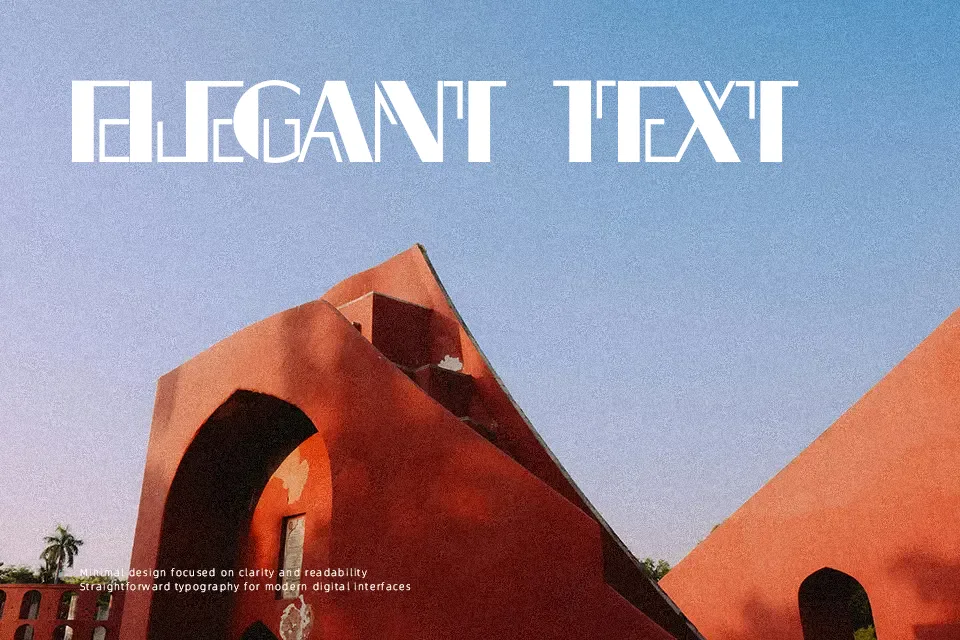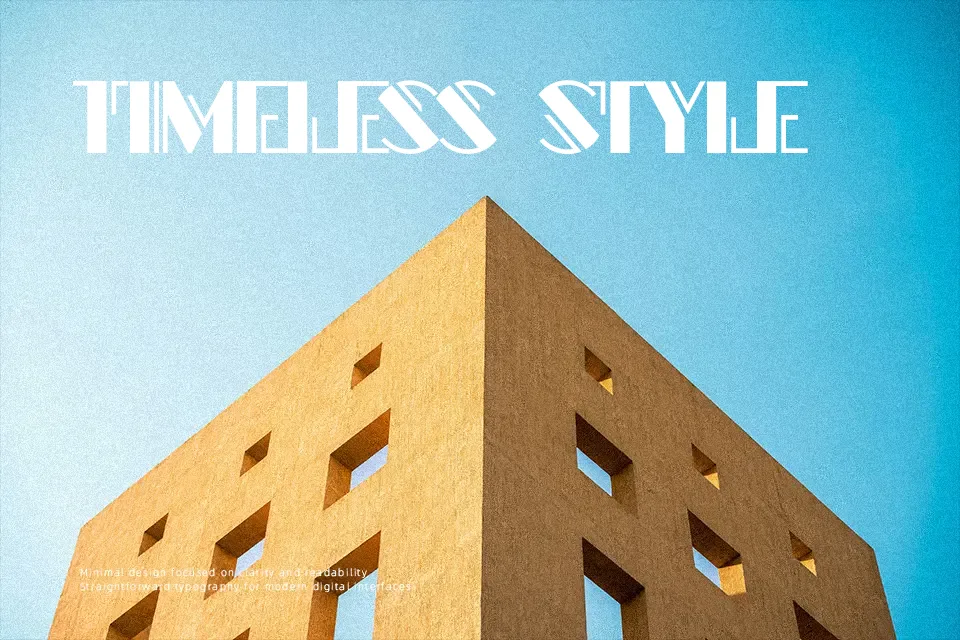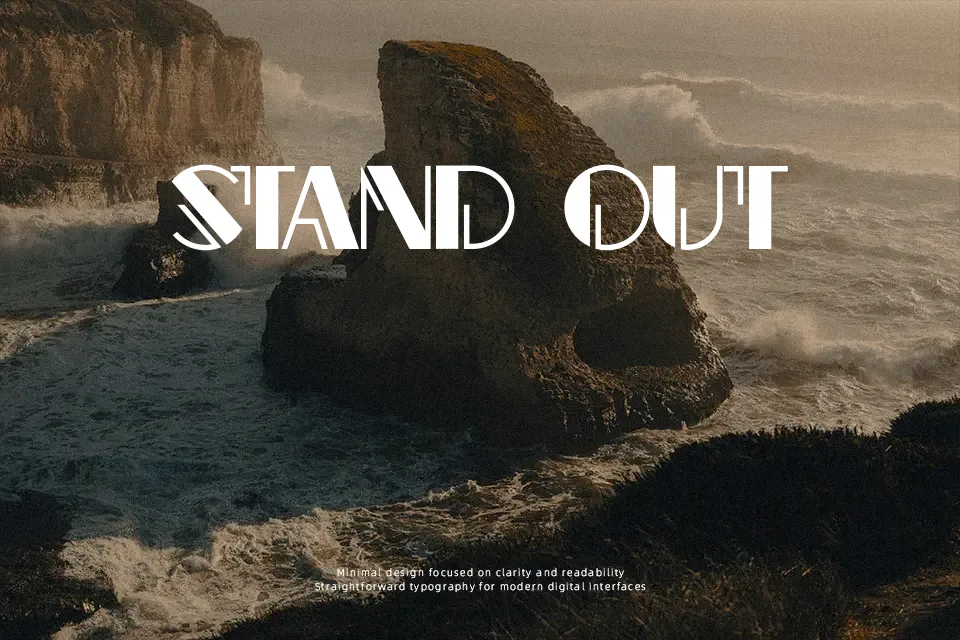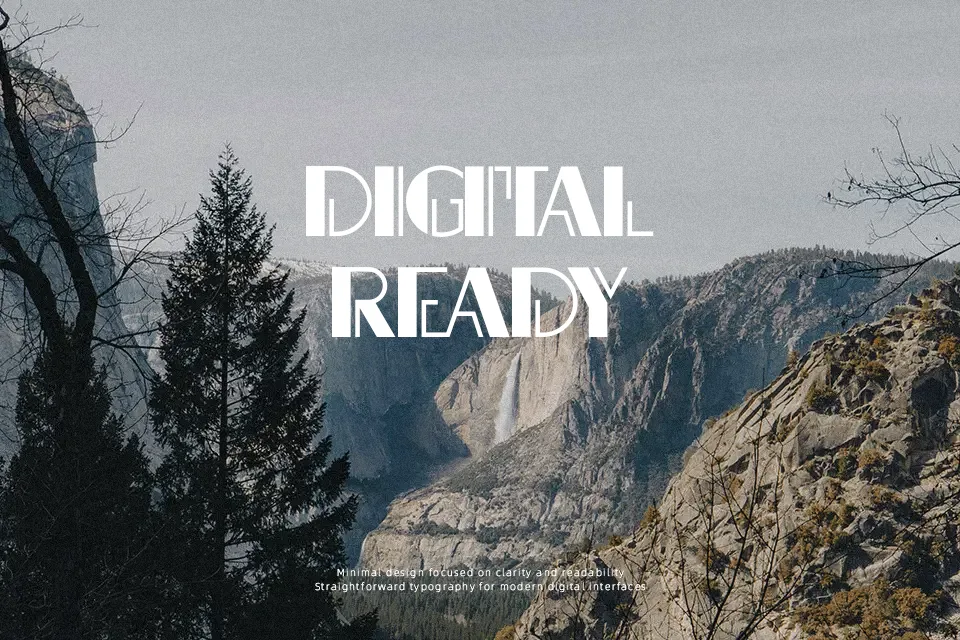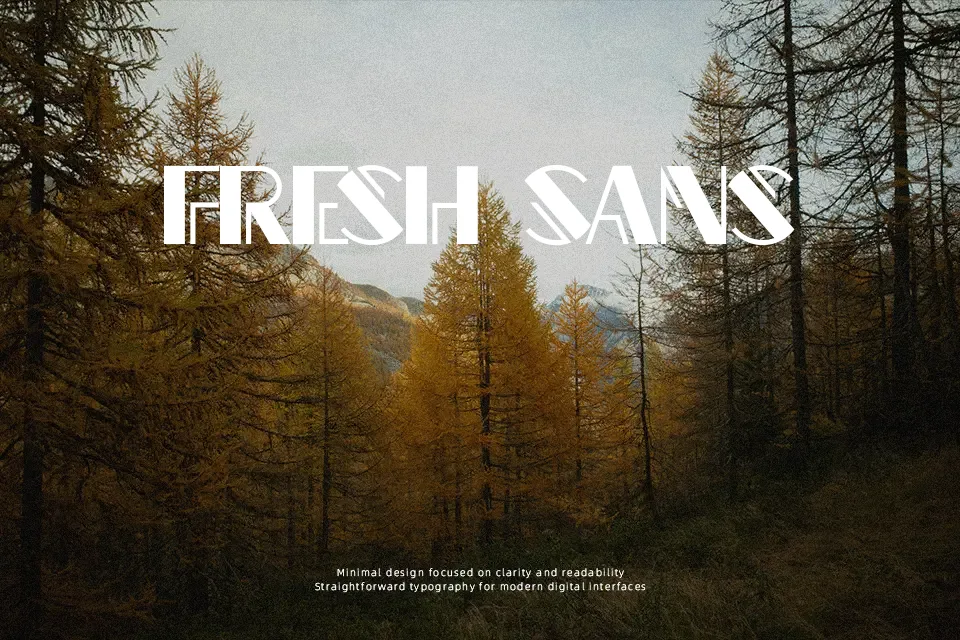
Rocodecoco Font
Designed by SleepyGecko
A bold typographic presence defines the Rocodecoco Font, blending highly stylized geometry with clean, substantial strokes. The letterforms are characterized by striking thickness contrast and tight but balanced spacing, capturing a distinct vintage flair. These dense forms maintain an excellent visual rhythm for prominent branding graphics and impactful advertising posters. However, the decorative complexity makes the typeface less effective for continuous reading or smaller text blocks. The heavy structural details perform at their best when scaled up, providing maximum impact in short, large-format headlines where its retro charm truly shines.
vintage product packaging
bold advertising posters
retro festival headlines
apparel branding graphics
Perfect for advertising, branding, and headline, with a bold and decorative style.